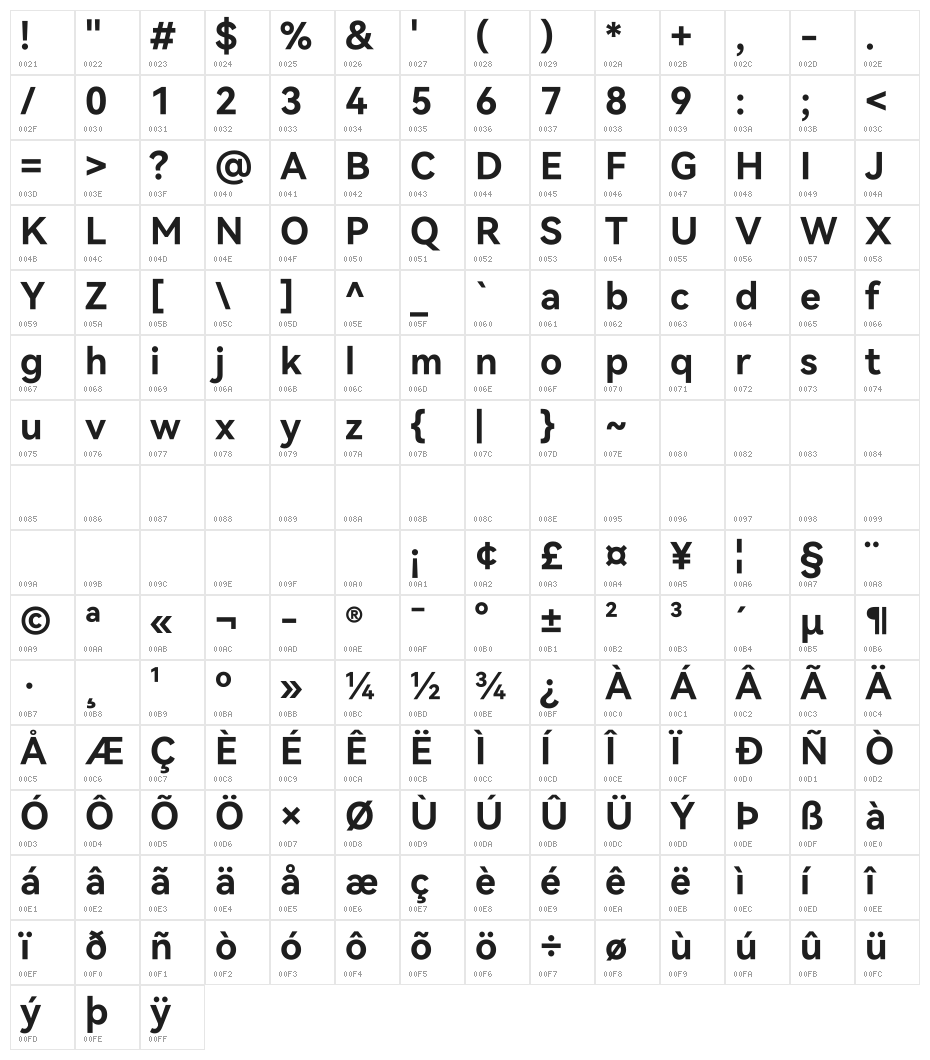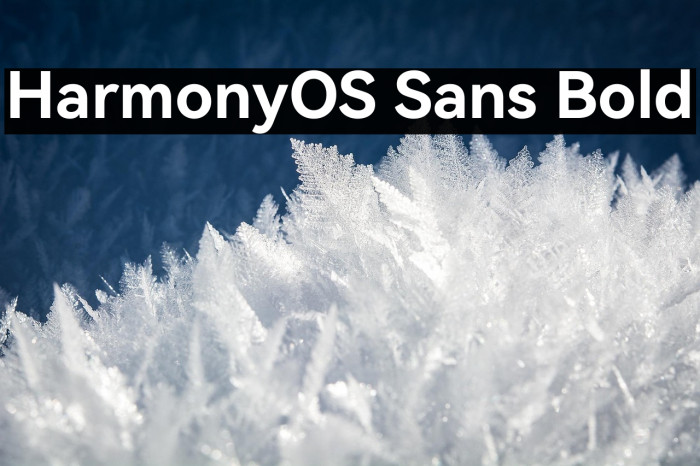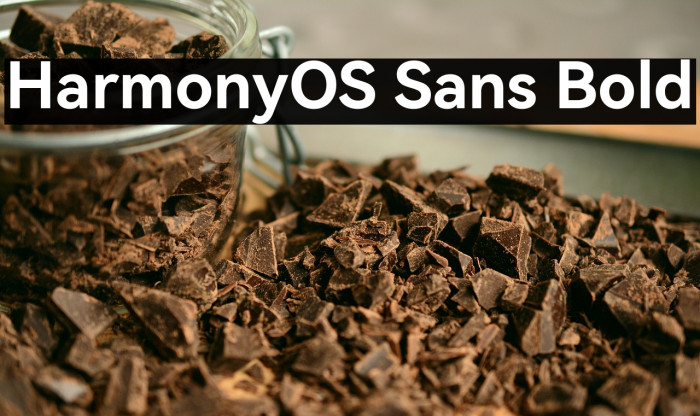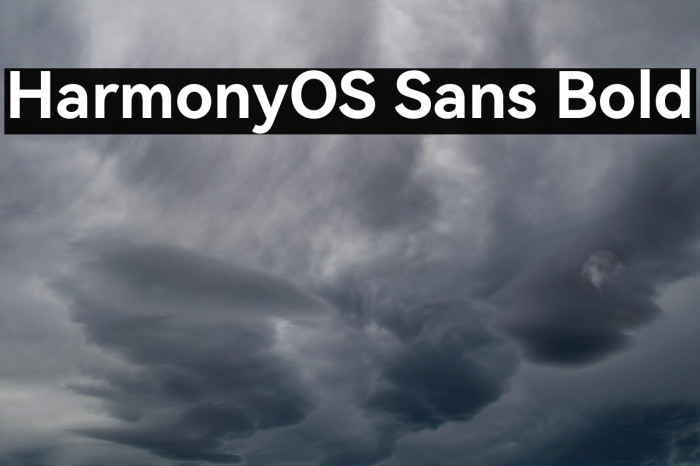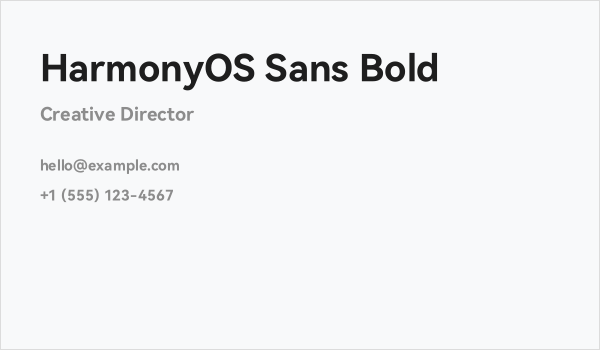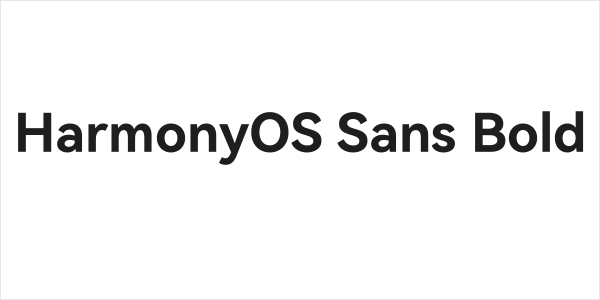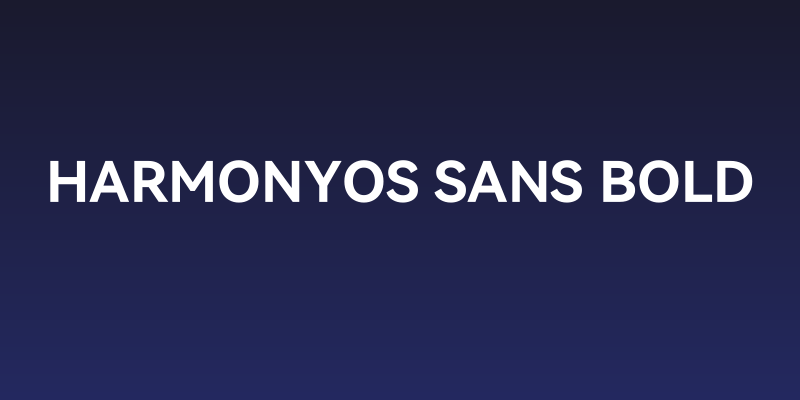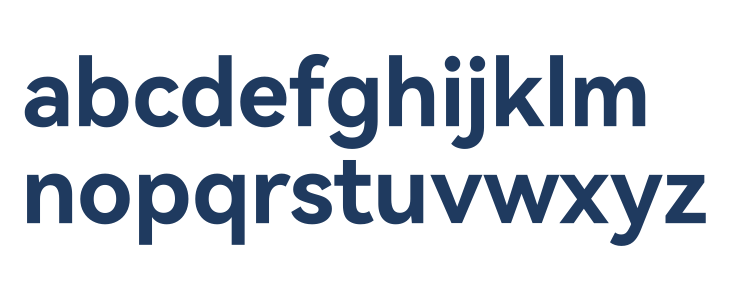
HarmonyOS Sans Bold Font
HarmonyOS Sans Bold Description
This font features a clean and modern sans-serif design with bold, uniform strokes that provide excellent readability. The characters are well-proportioned, with a consistent weight that gives a strong and confident appearance. The uppercase and lowercase letters are distinct, with rounded edges that soften the overall look. The numerals are clear and easy to read, making them suitable for various applications. Special characters are included, maintaining the same bold and straightforward style. This font is versatile, suitable for both digital and print media, and can be used in a wide range of design projects.